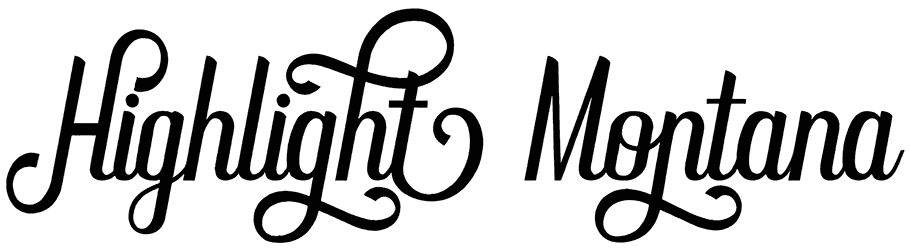
Highlight Montana Font
You should know that using classic and chic lettering can always be a unique choice to impress viewers, and this wedding font has such a form. Appealing letters with a royal vibe will make Highlight Montana font amazing for varied formal or informal layouts, like a Christmas flyer. Spotlight your artistic aspects and create a ravishing design.